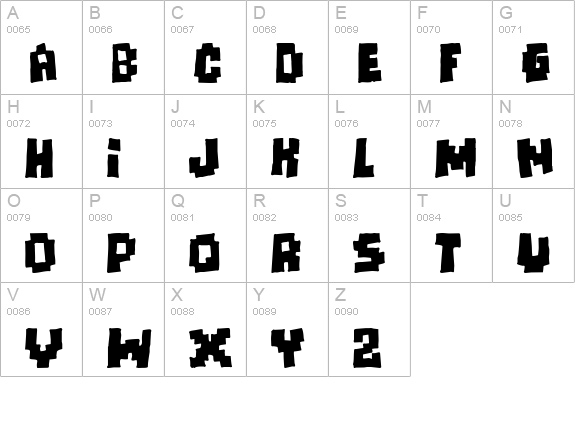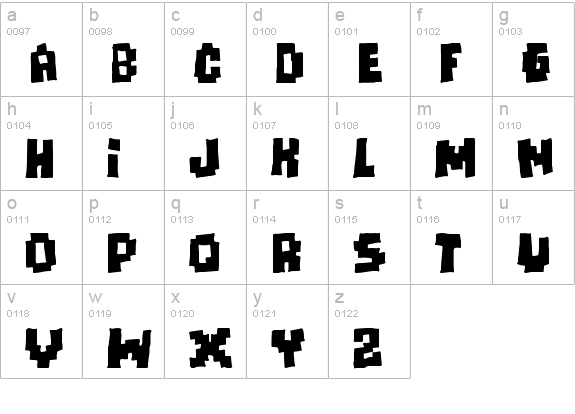
Freaks of Nature massive Font Details
Introducing Freaks of Nature, a bold and eye-catching font that is sure to make a statement in any design project. This massive font features unique and quirky characters that stand out from the crowd. With its playful and vibrant style, Freaks of Nature is perfect for adding a touch of personality to posters, logos, and more. The best part? Freaks of Nature is available for free download at FontsMarket.com. So go ahead and grab this one-of-a-kind font to elevate your designs and unleash your creativity!